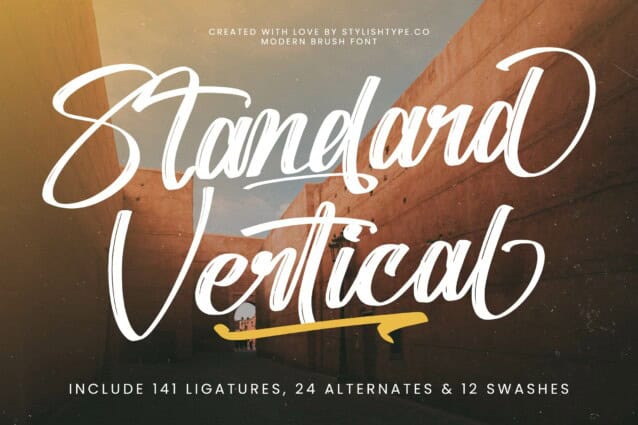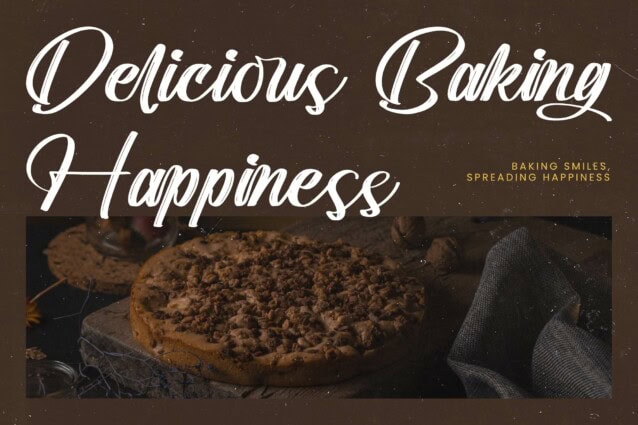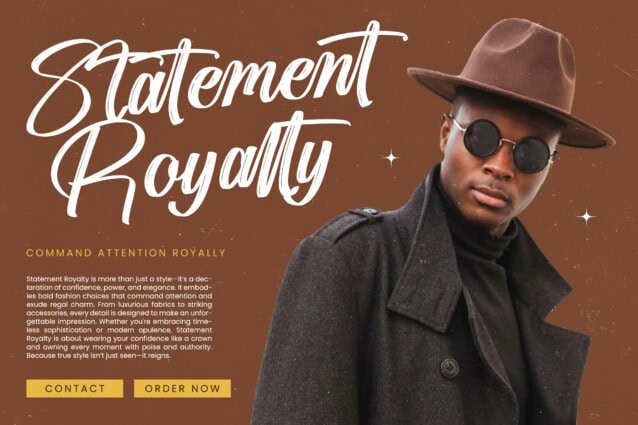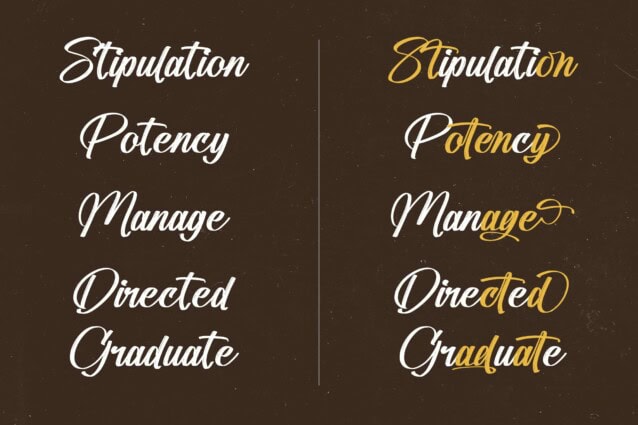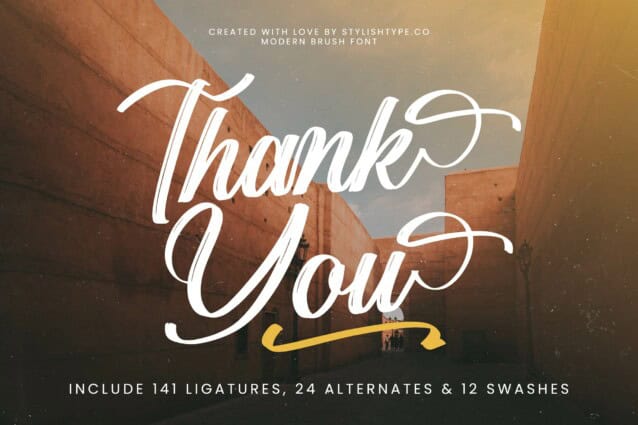
Standard Vertical Font
Standard Vertical Font, from Stylishtype.Co , Suitable for any projects such as: logos, branding projects, homeware designs, product packaging, mugs, quotes, posters, shopping bags, t-shirts, book covers, name card, invitation cards, greeting cards, label, photography, watermark, special events, and all your other luxury and beautiful projects that need a Luxury Script taste.